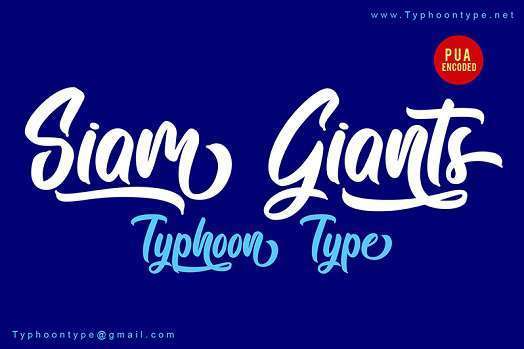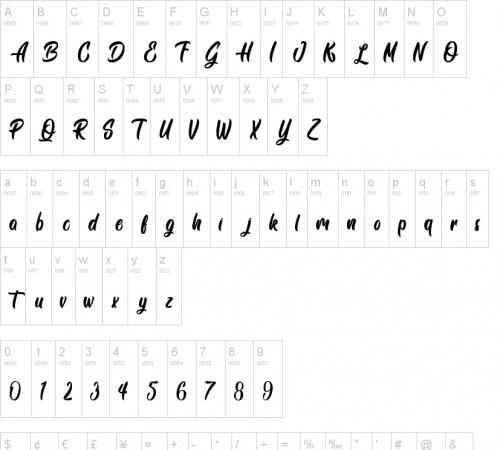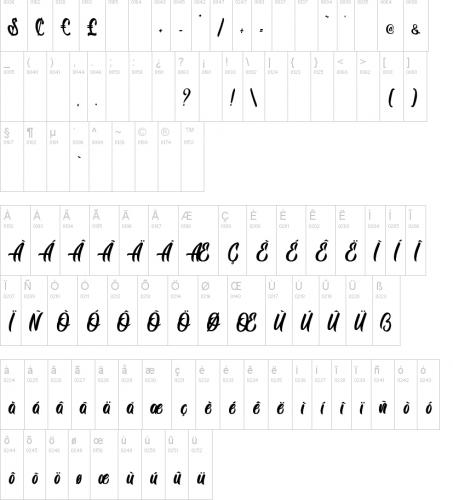
Siam Giants is a high quality Old School font that is designed by Typhoon Type – Suthi Srisopha and is available for free download and personal use. The free version provides all uppercase and lowercase letters and a few special characters too.